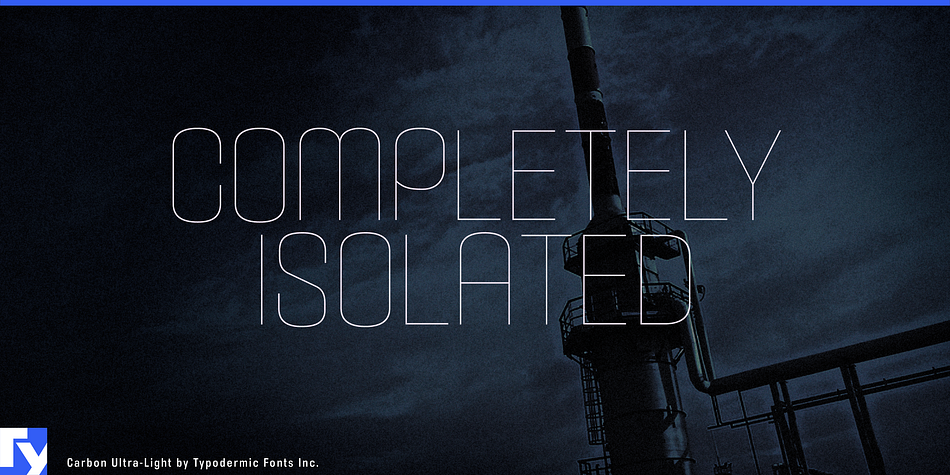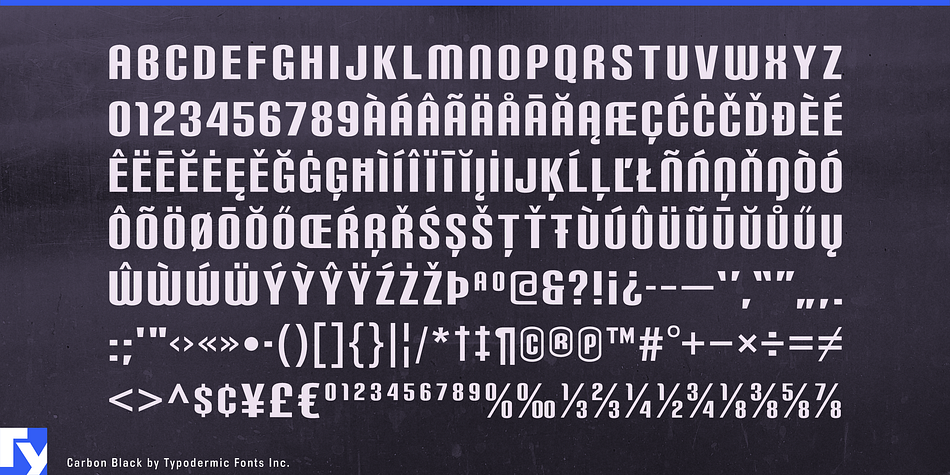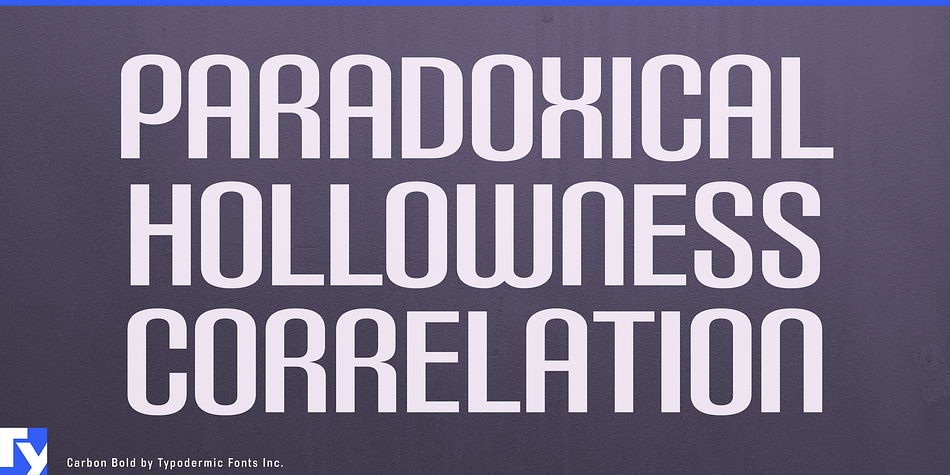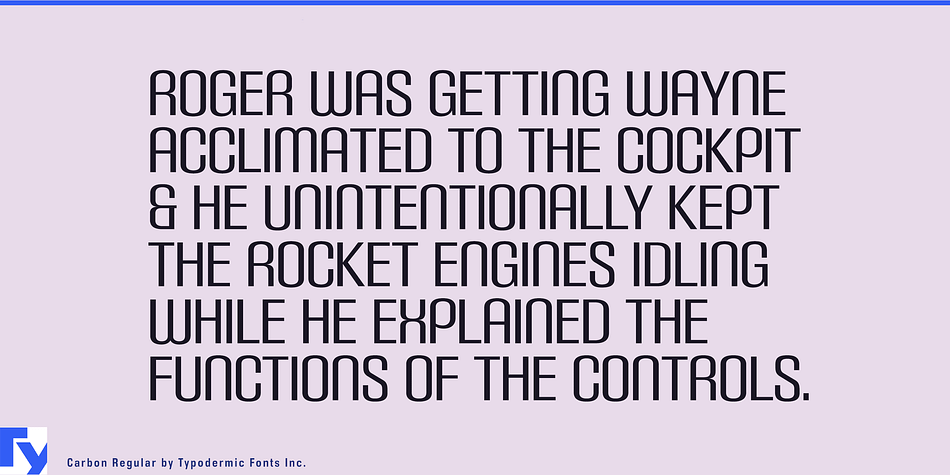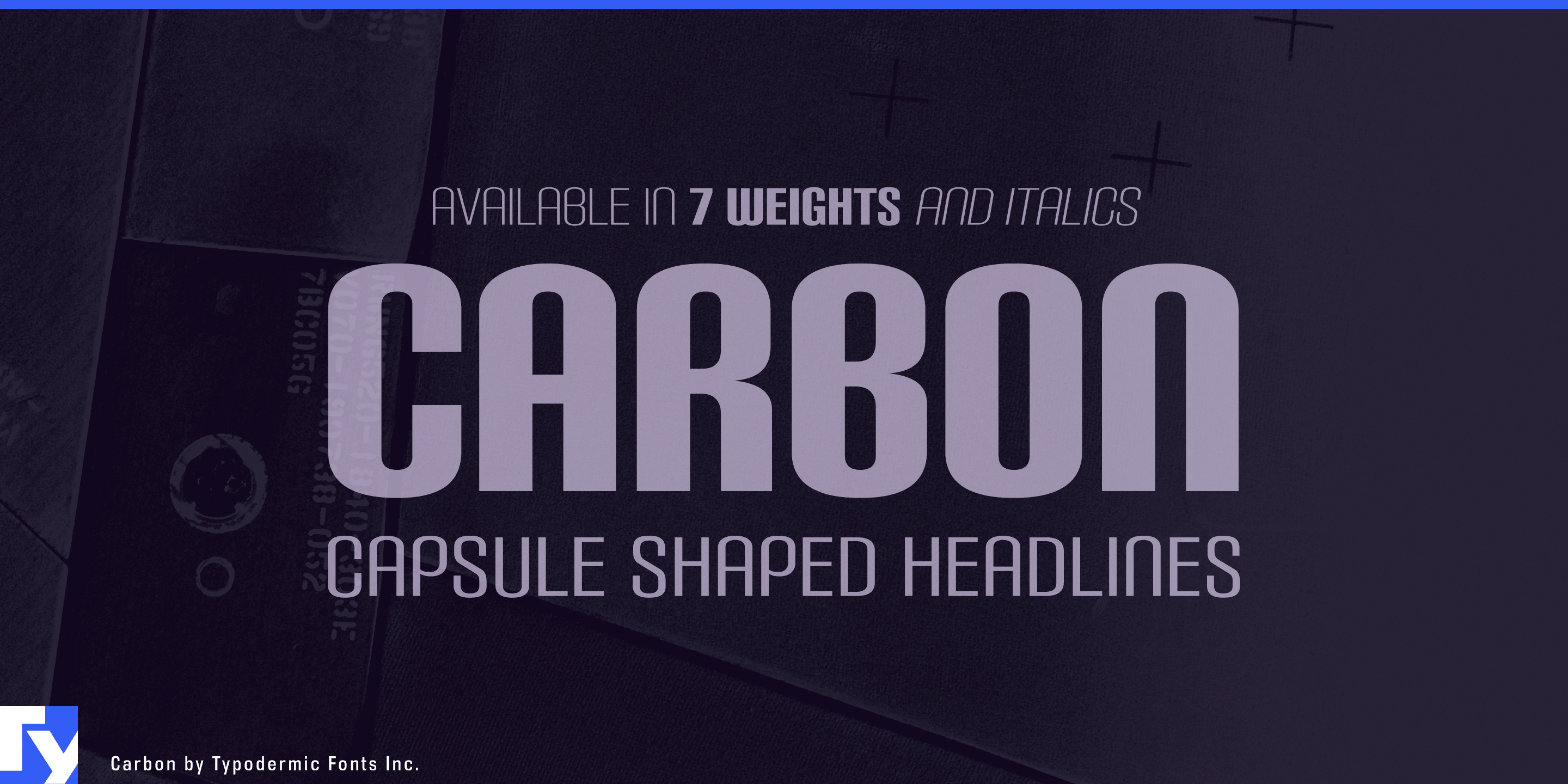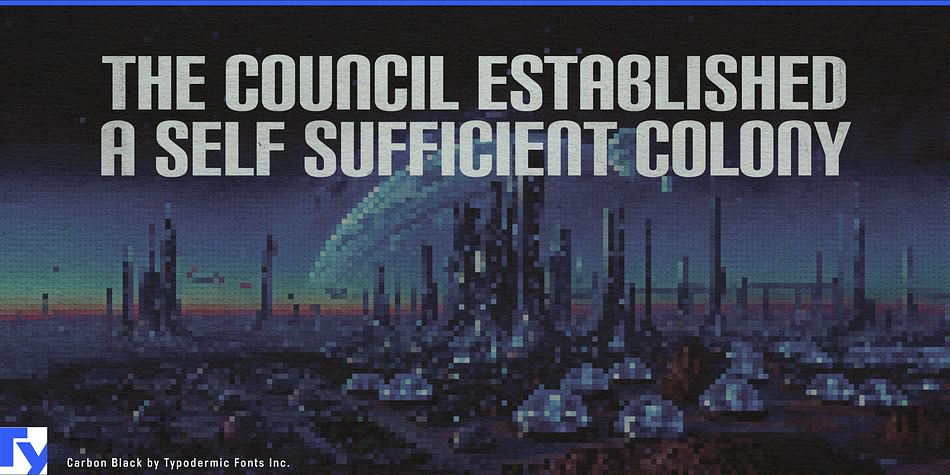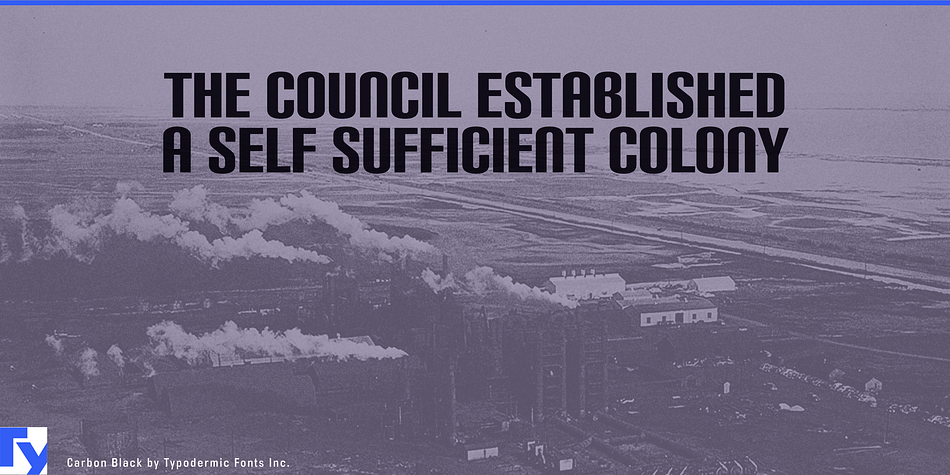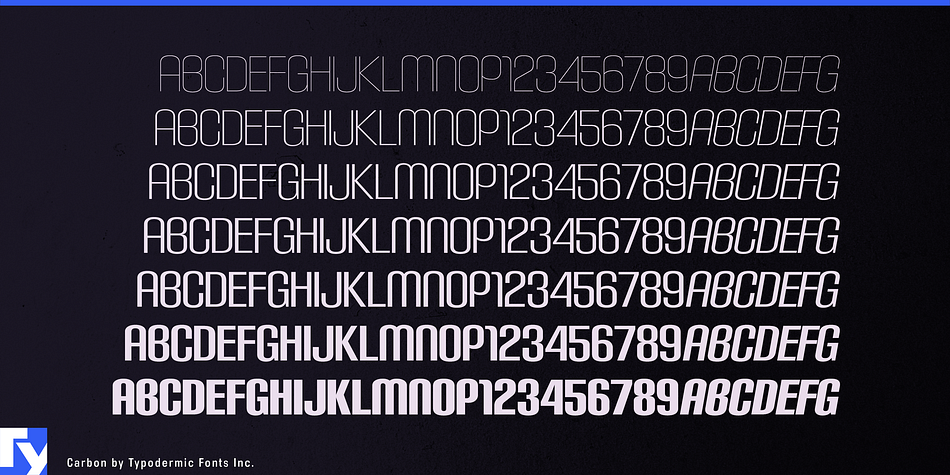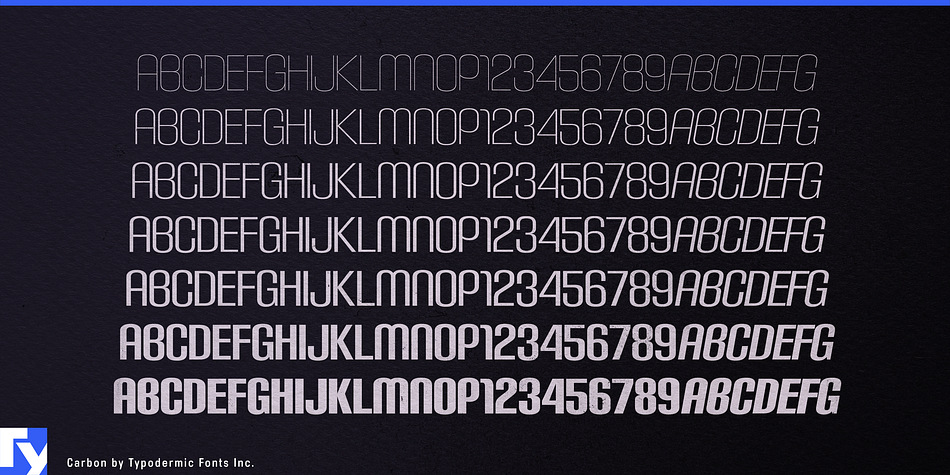
Carbon is a display sans font family. This typeface has sixteen styles and was published by Typodermic Fonts Inc.
Carbon is a neoteric, unicase headline typeface with capsule shapes and streamlined modularity. It’s available in 7 weights, italics and 2 matrix texture styles.